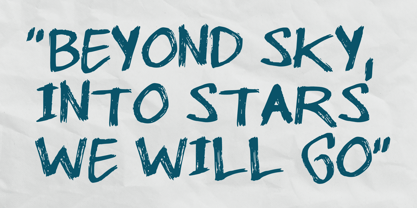
Almost Dry
by Mvmet
The Almost Dry Font Family was designed by Gabriel Valentinus and published by Mvmet. Almost Dry contains 1 styles.
Almost Dry is a playful and natural brush stroke font. It will elevate a wide range of design projects to the highest level. You can use this font for many design ideas such as stickers, t-shirt designs, amazing logo designs, magazine or book covers, comics, cartoon drawings, and much more.
Designers: Gabriel Valentinus
Publisher: Mvmet
Foundry: Mvmet
Design Owner: Mvmet